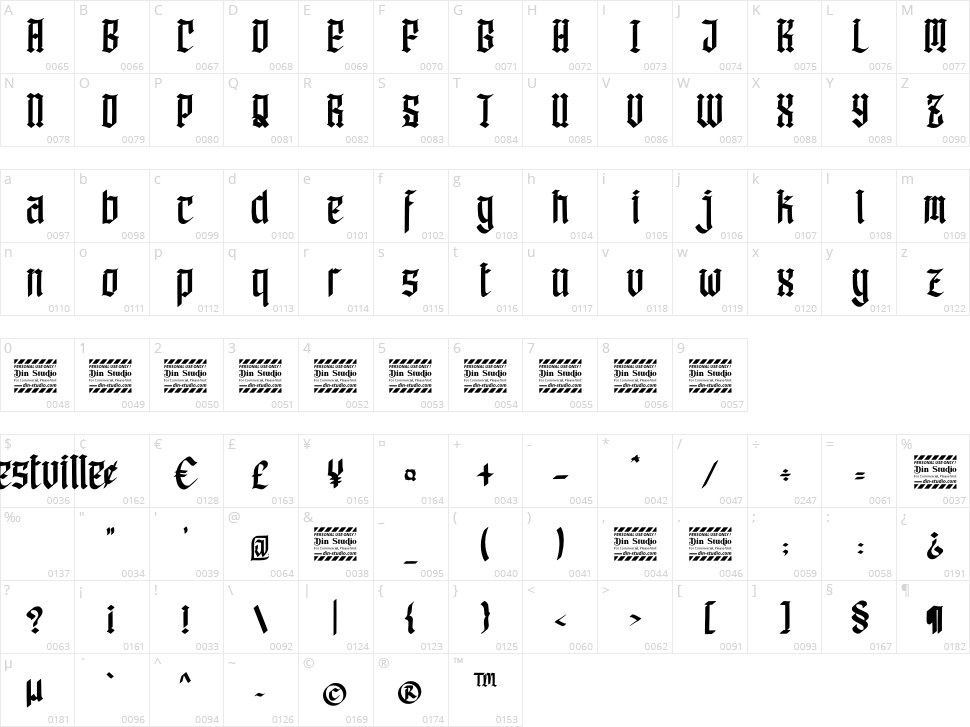
Westville is made to bring out a modern and stylish view of what you make. This typeface with artistic style looks very interesting for loads of different projects and promotions. A great all-in-one package for your logo, book cover, poster, t-shirt, branding, and advertisement needs.